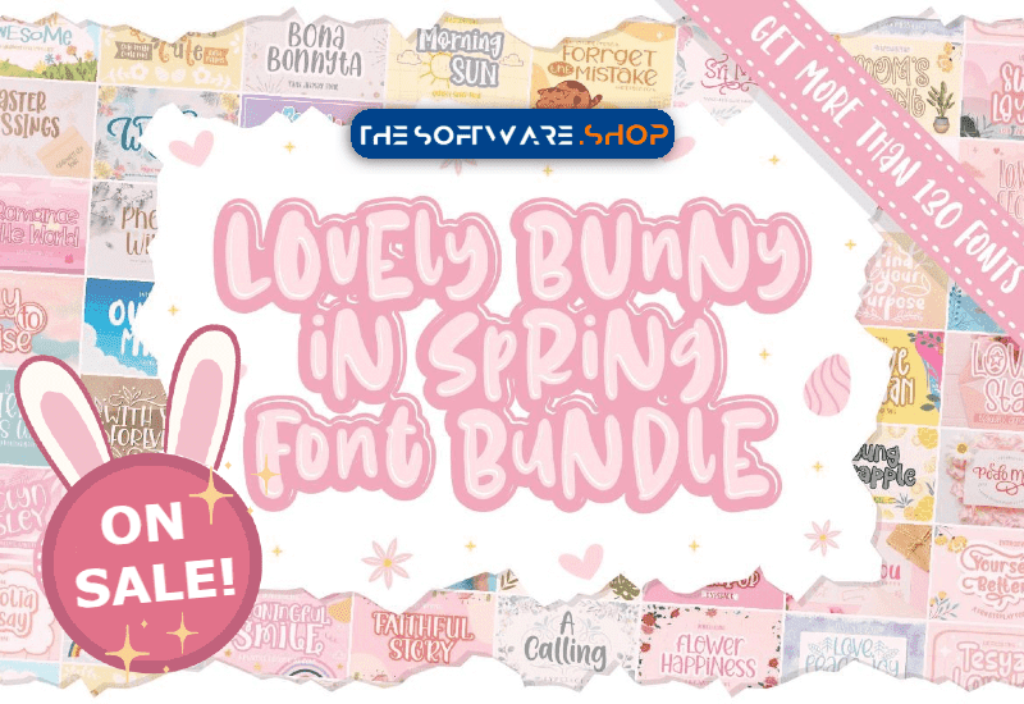
The Lovely Bunny In Spring Bundle is a must-have for any springtime DIY project. This package, brought to you by Rifky (7ntypes), includes a total of 132 fonts in a variety of styles. Not only that, but the bundle also includes matching clipart for an added touch of whimsy.
This package of 132 wonderful fonts is perfect for any seasonal project. With a variety of styles, including romantic display fonts, the loveliest script fonts, and adorable matching clipart, you’ll be sure to find the perfect font for your project. What’s more, most of the fonts are PUA encoded so you’ll have no trouble accessing the special characters.
- Sunday Cute
- Shine Everywhere
- Thinking About You
- I Love You All
- Blinding
- Stay with You
- Neigfriste
- Think Happy
- Cute My Love
- Masrun
- Walking in a Winter
- Keep Being Beautiful
- Whatever Will Be
- Cooking with Love
- Open the Door
- Where to Next
- Fly to Get High
- Olaugh Family
- Romance the World
- Our Home Play
- Masrun Carved
- Sweet Loyalty
- Morning Sun
- With You Forever
- Podo Moro
- Love and Secret
- The Enchanted Forest
- Calesty
- Laiqa Jahara
- Study with Me
- Believe There Will Be Beauty
- Magnolia Ramsay
- Love Peace Joy
- Don’t You Worry
- Flower Happiness
- A Calling
- Gift of Love
- Forget the Mistake
- Fratis Tilont
- Start from What You Can
- Freya Jolicia
- Comes in Waves
- Barnacle Boy
- Metultah
- Meaningful Smile
- Tesya Lovely
- Autumn Blessing
- Special Day Gift
- Spring is in the Air
- Growing in Bloom
- Cutest Little
- You Are Awesome
- Tabitha Quinza
- Faithful Story
- Ametta Camberlyn
- Spread Love
- Grace Simon
- Hello Oranges
- Young Pineapple
- Will You
- Just Like That
- No Bad Days
- You Got This
- Sri Muliyo
- Fly to Rise
- Do Not Forget to Eat
- Ambitious Goals
- Will You
- Mexicana De Mayo
- Eternal Bloom
- Wavering
- Qeastera Cute
- Milyone
- Summer Rain
- Minkem
- Seshila
- Phoebe Willow
- Pulen
- Losing Control
- Think of You
- Beat the Ordinary
- Sotis
- Pink Happy
- Mom’s Plant
- Minkem Stripe
- Hunky Dory
- Work Beats Talent
- Bright Clouds
- Wildan
- Find Your Purpose
- Bestina
- Thor Matter
- Enjoy Every Moment
- Nice Shine
- Don’t Forget to Relax
- Women’s Tenderness
- Braelyn Kinsley
- Mega Jaya
- Lola the Koala
- This One Will Pass
- Easter Blessings
- Joyful Smile
- Merryah
- Men Crew Well
- Mercy Door
- Habede
- Life Conundrum
- Berry Romantic
- Easter’s on Its Way
- Yourself Better
- Bona Bonnyta
- Stephia
- Feeling Tropical
- Caprilia
- Lover Stay
- Selfia Gratia
- Still Good
- Britney Pearce
- Like Snacking
- Much Better
- Sweet Candy Lollipop
- Happy Necessity Family
- Lifting Others
- Born to Be Happy
- Jenie Jhonny
- Freshness
- Dining Companion
- Out of Mint
- Believe You Can
- Royum Bread
- Kepo Coffee
- Friendly Neighbor